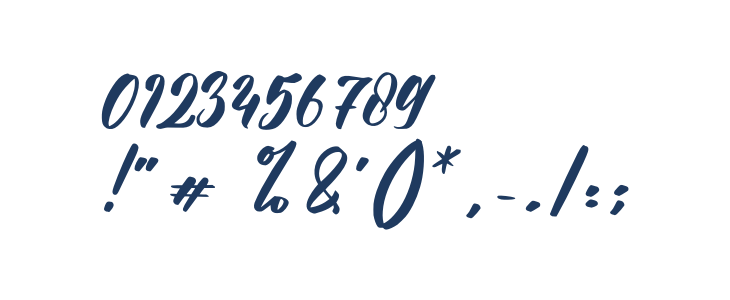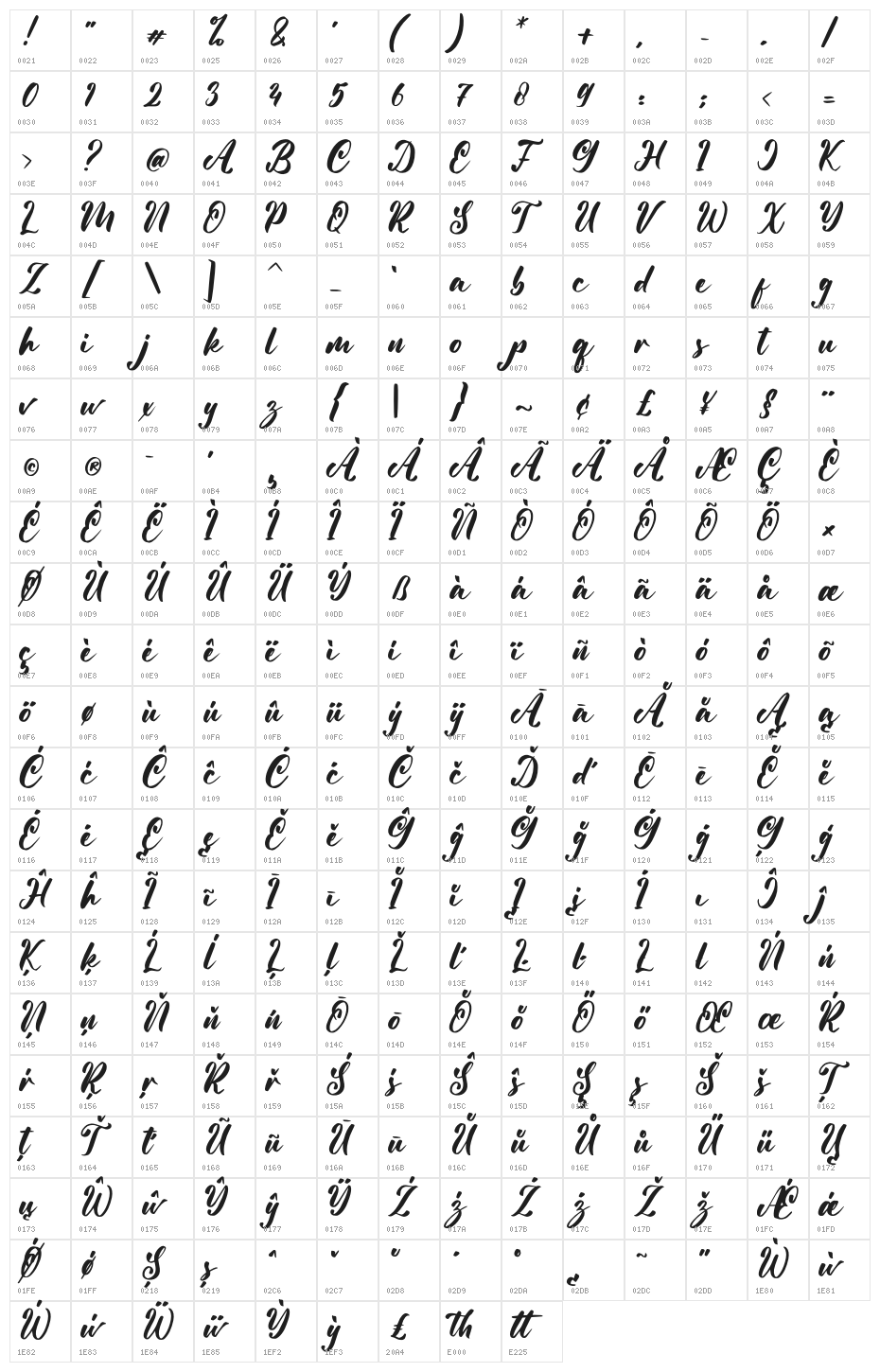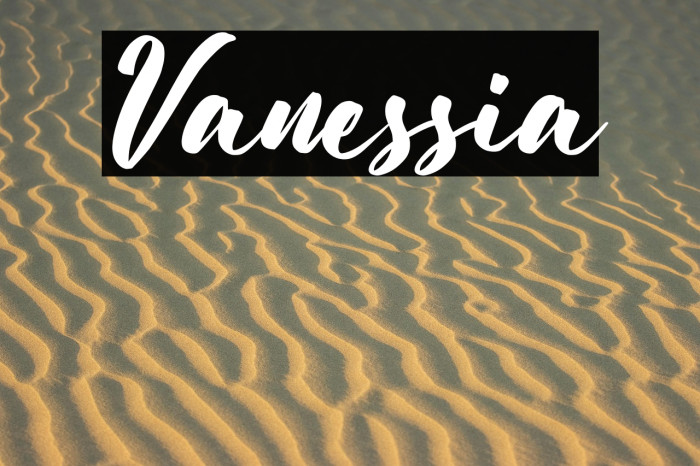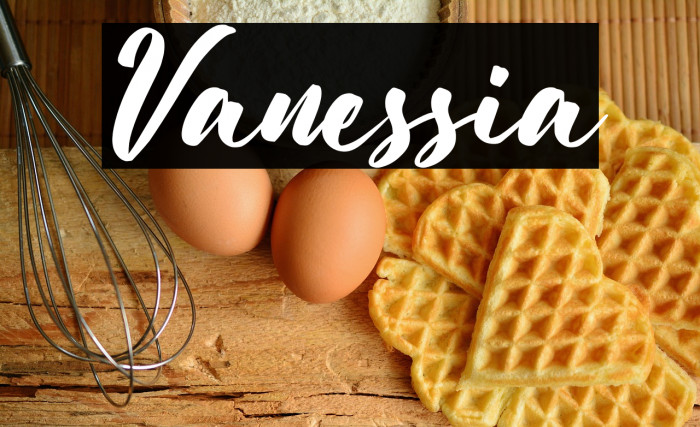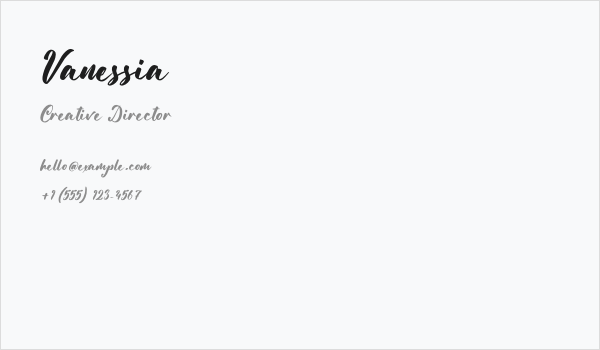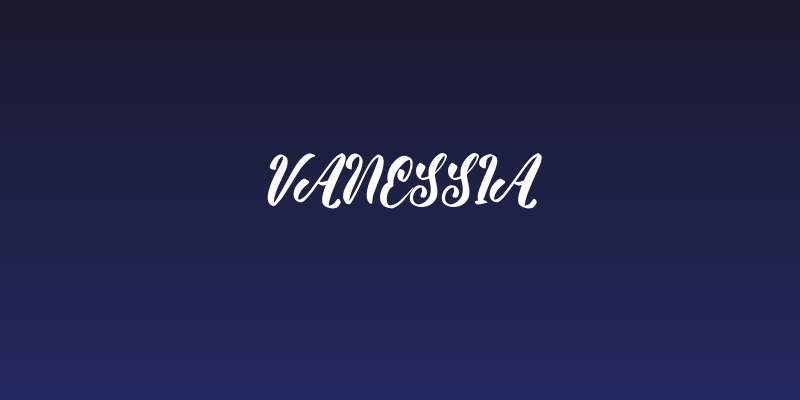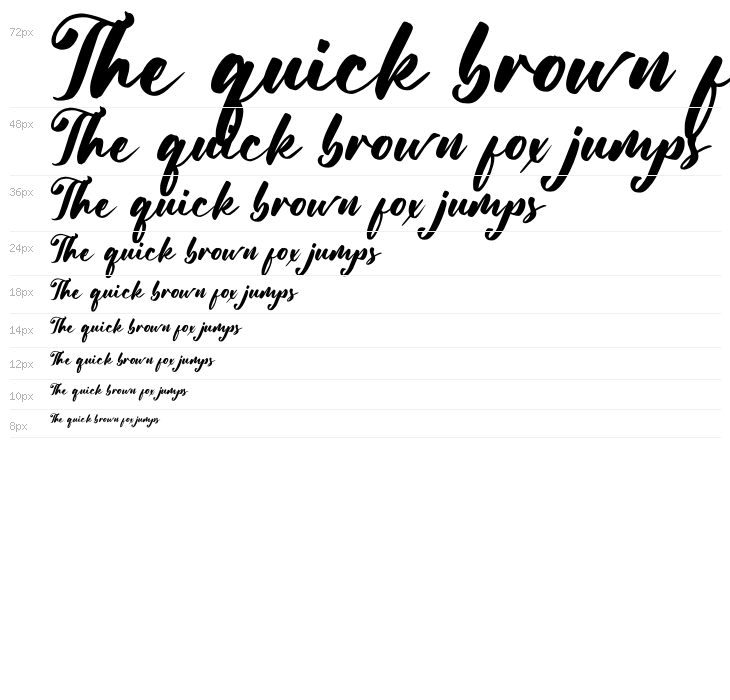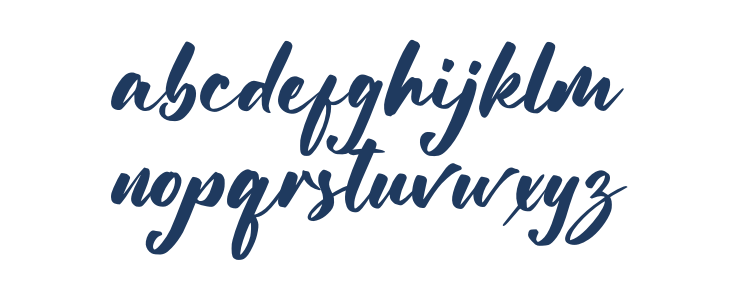
Vanessia Font
Vanessia Description
This font features a bold, cursive style with a flowing, handwritten appearance. The letters are connected, creating a seamless and elegant look. The uppercase letters are slightly larger and more ornate, while the lowercase letters maintain a consistent flow. The numerals and special characters are designed to match the overall aesthetic, with smooth curves and a cohesive style. The font exudes a sense of sophistication and creativity, making it suitable for a variety of design projects. Its boldness ensures readability while maintaining an artistic flair.
| Proposed Projects | Ideal for wedding invitations, branding, logos, and artistic projects requiring a personal touch. |